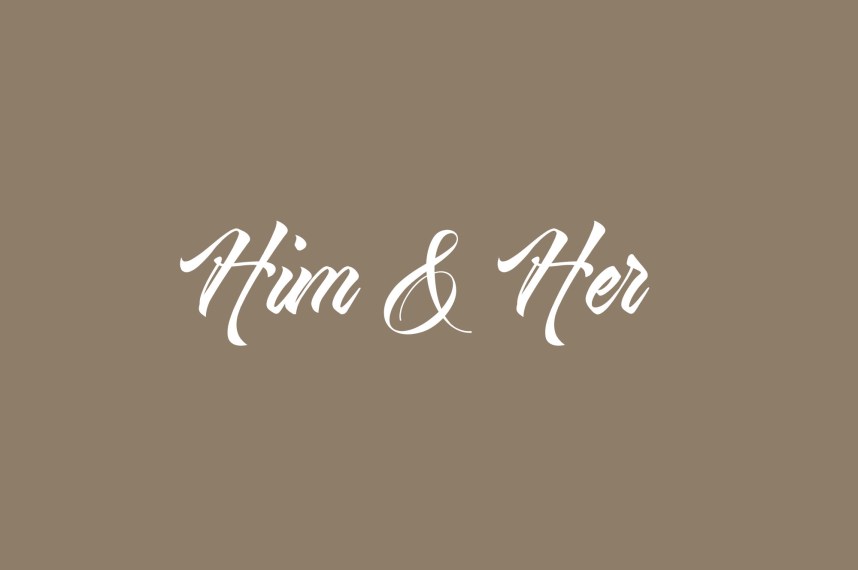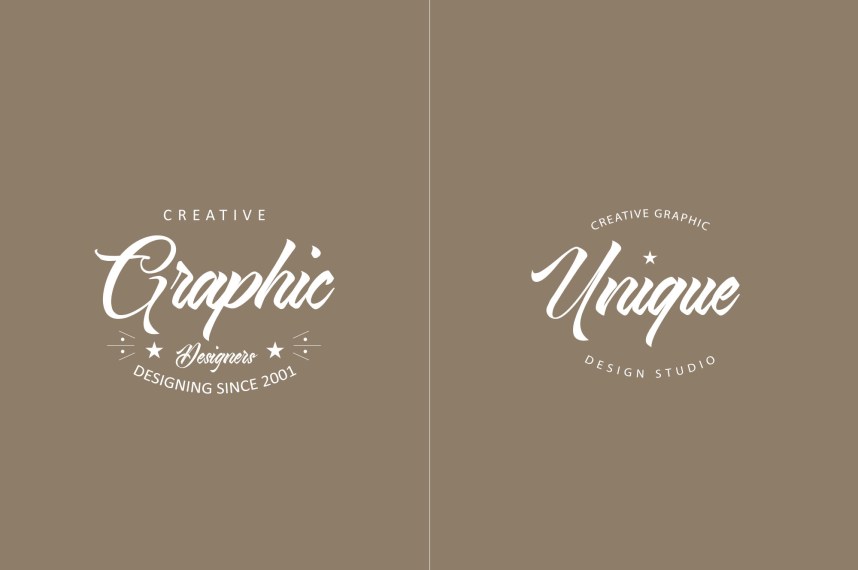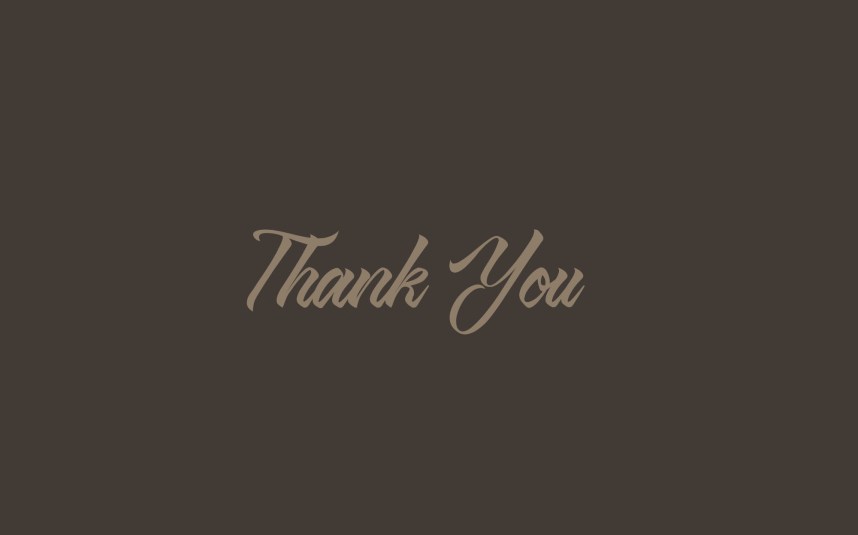
Viana Script Font
Introducing Viana Script Font! Viana Script designed and shared by Graphicpear. Viana Script is a elegant script font with patterns and floral elements, allowing you to create beautiful hand-made typography in an instant, made for bloging, logo, handcrafted, wedding invitation, quote, logo. Just combine with ligature could you create great designs or logo.